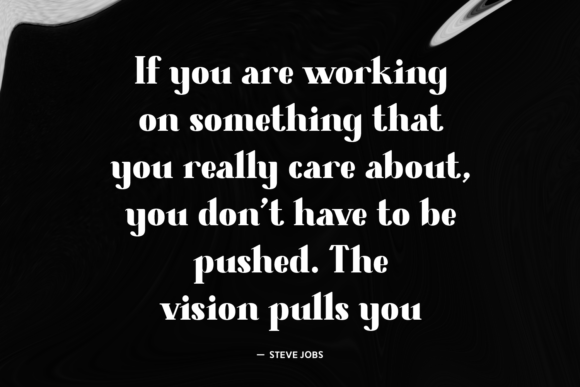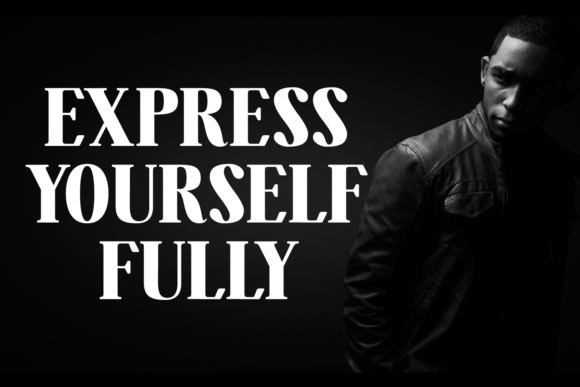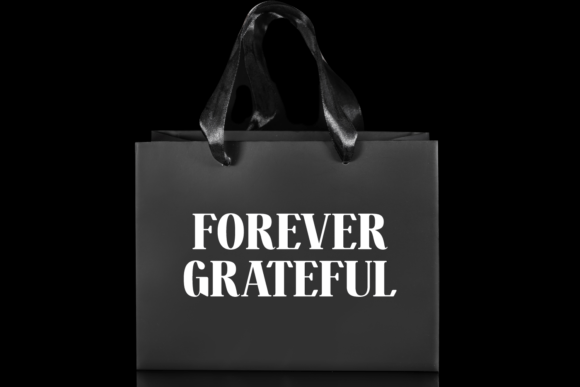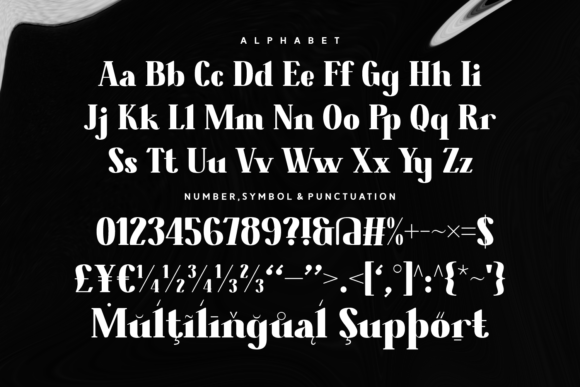
Introduction to Genius Youth Font
An introductory image for “Genius Youth,” a new serif font.
The font’s strong, confident letterforms make it ideal for modern branding and headlines .
Key Features of Genius Youth Font
Why Choose Genius Youth Font?
Genius Youth Font offers exceptional quality and versatility, making it a valuable addition to your design toolkit. Whether you’re creating for personal projects or commercial use, Genius Youth Font delivers professional results.